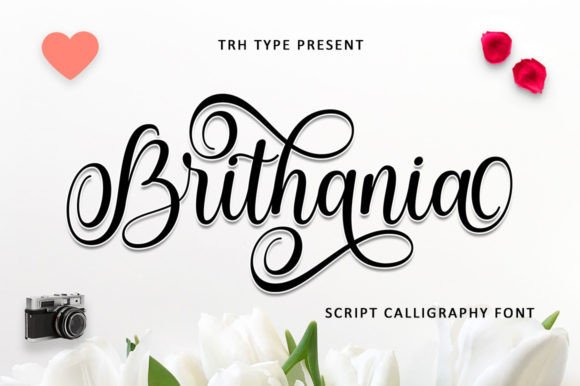
Welcome to the world of Brithania Font, where elegance and charm collide to create a breathtaking symphony of visual delight. This exquisite script font, crafted with love by the talented trhtype, has garnered widespread acclaim as the Best Font For Web Design in 2015 and continues to captivate hearts with its timeless beauty.
As you explore Brithania Font's intricate curves and delicate flourishes, you'll find a font that effortlessly blends the classic with the contemporary. Its graceful lines evoke a sense of nostalgia, while its modern touches verleihen a touch of sophistication and elegance.
Brithania Font's versatility knows no bounds. Whether you're designing wedding invitations, thank-you cards, heartfelt quotes, or eye-catching logos, this font will elevate your creations beyond the ordinary. Its innate charm makes it an ideal choice for business cards, adding a touch of personal flair to your professional communications.
With Brithania Font, you'll discover a font that truly embraces the spirit of creativity. Its seamless compatibility with a vast array of design software opens up endless possibilities, allowing you to unleash your imagination and bring your visions to life.
Bridal boutiques and event planners will find Brithania Font an indispensable tool for creating unforgettable wedding stationery. Its romantic aura perfectly captures the essence of love and commitment, making it the perfect choice for invitations, menus, and programs that will be cherished for years to come.
Branding and marketing professionals will delight in the unique personality Brithania Font brings to their designs. Logos, flyers, and social media graphics crafted with this font are sure to leave a lasting impression, setting your brand apart from the crowd.